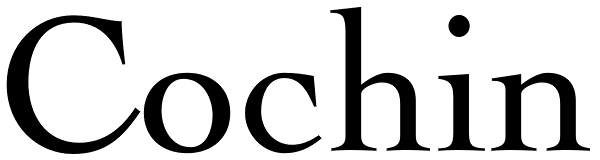
Cochin
The Paris foundry Deberny & Peignot was the first to release this design in 1912 (also known as Sonderdruck, it was adapted by many other foundries in the 1920s). This version was created in 1977 by Matthew Carter for Linotype. Cochin, named for the...